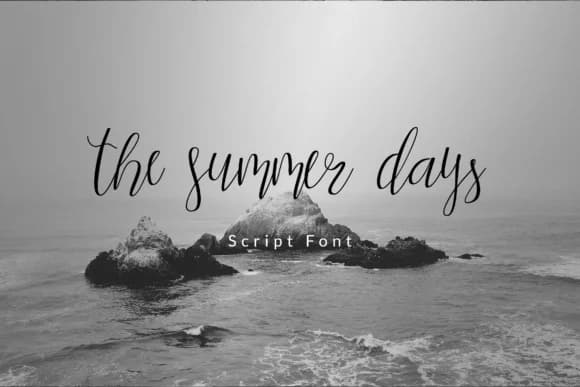
1 / 9About Ladies Rock Duo Font
Ladies Rock Duo Font by Firtana is a versatile script typeface that balances contemporary edge with timeless elegance. The family includes multiple style variations, Monoline and Sans Hand versions, offering flexible options for layering and design composition. These different styles let you create visual depth and adapt the appearance to suit various design contexts and moods. This script excels in branding applications where personality is essential. Wedding invitation suites benefit from its confident character, as do luxury boutique packaging and upscale restaurant menus. The style variations make it equally valuable for craft projects like DIY signage, custom greeting cards, and Etsy shop branding, where hand-drawn warmth enhances product appeal. Whether designing a sophisticated brand identity or creating decorative elements for small-batch product labels, the typeface maintains visual coherence and professional polish across different uses. The multiple weights and style options built into this family make it practical for designers managing diverse client work or creators who need a versatile typeface covering both display and accent applications. Mixing and matching styles allows you to build hierarchy without requiring additional fonts, streamlining your design workflow while maintaining a cohesive visual language. Get Ladies Rock Duo Font on Creative Fabrica and explore the range of design possibilities this multi-style script family unlocks.
Ladies Rock Duo Font is a script font that shines as a display or heading face. Pair it with a clean sans-serif or serif font for body text β the contrast creates a clear hierarchy while the two styles stay balanced and easy to read.
Ladies Rock Duo Font
by Firtana